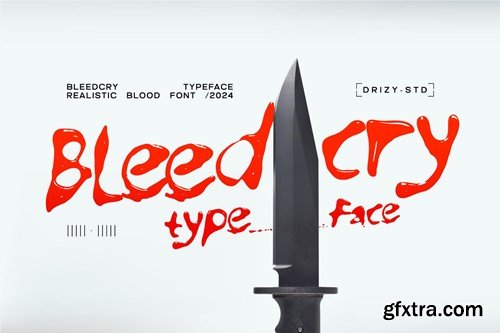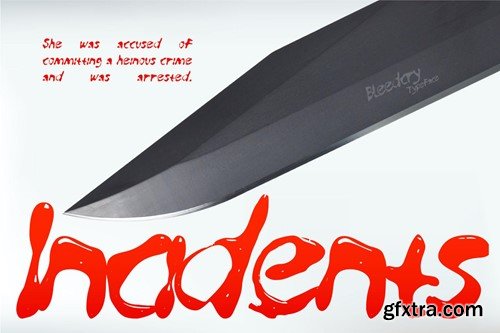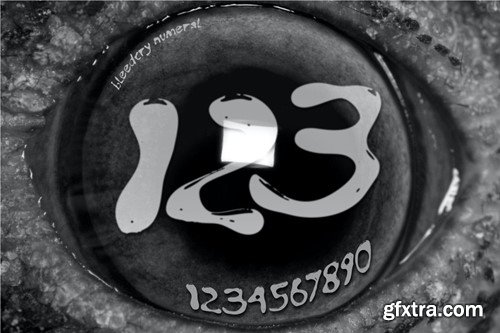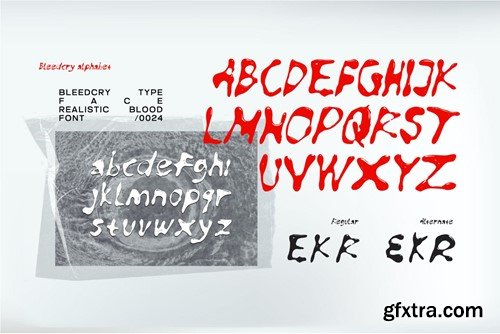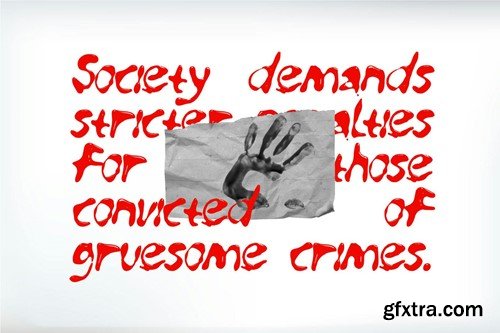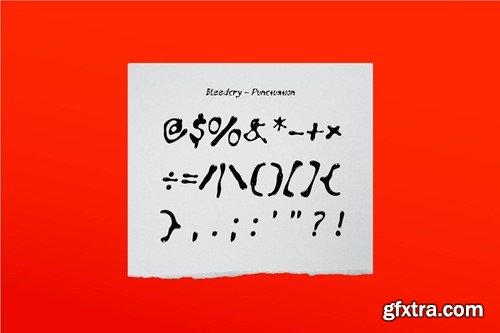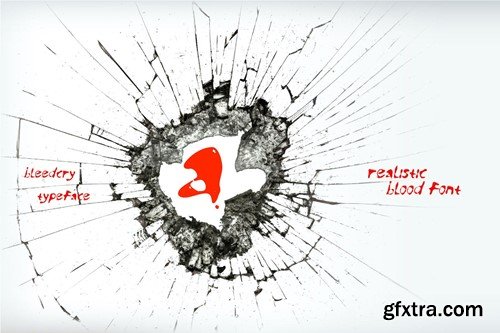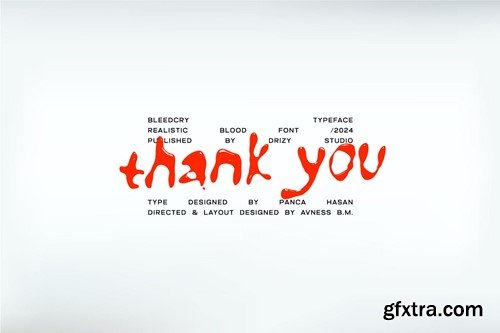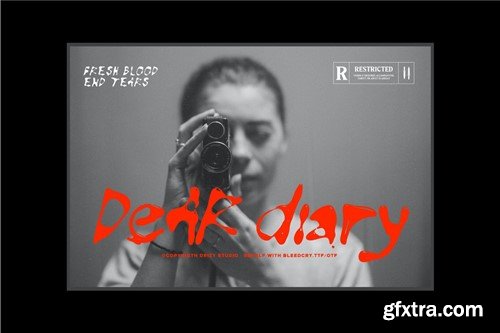
Bleedcry Typeface - Realistic Blood Font
Bleedcry Typeface - Realistic Blood Font Introducing Bleedcry, a typeface that brings a touch of Noir Crime to your design projects. This unique font is not just a set of characters; it's an artistic interpretation of blood, capturing the essence of intensity, passion, and drama. Bleedcry features: Character Set Punctuation & Numbers Multilingual Support Alternates File Included: OTF & TTF Elevate and explore the design possibilities with this Blood Font!